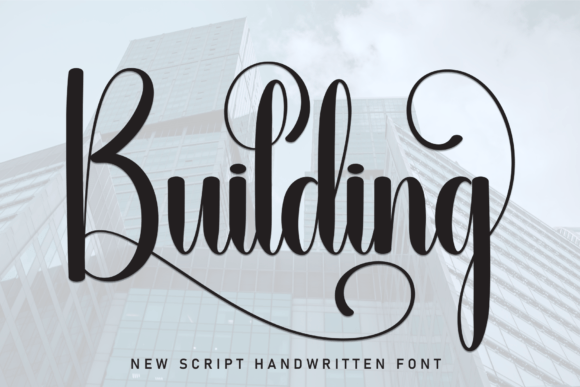
Handwritten Love: Introducing Building Font
Have you ever received a handwritten note that made your heart skip a beat? Maybe it was a love letter, a birthday card, or a heartfelt apology. Whatever the occasion, there’s something special about the imperfections and personality that come with handwritten text. That’s exactly what inspired the creation of the Building Font – a sweet and friendly handwritten font that adds a touch of warmth to any design.
Whether you’re crafting wedding invitations, designing a new logo, or simply writing a thank-you note, Building Font is the perfect choice. Its fresh and casual feel makes it ideal for any design that needs a little extra love. As a designer, you know how important it is to have the right tools at your fingertips. Building Font is a valuable addition to any design arsenal, offering a unique and versatile way to add personality to your work.
Key Features of Building Font
- Unique Character Set: Features a unique character set that includes a wide range of symbols, icons, and glyphs, making it ideal for creative projects.
- Font Customization: Allows for advanced font customization, including ligatures, swashes, and alternate characters, providing designers with creative freedom.
- Multi-Lingual Support: Supports multiple languages, including Latin, Cyrillic, Greek, and more, making it suitable for international projects.
Review of Building Font
Building Font is an interesting font, but its success depends on how you plan to use it.
- Unique aesthetic: Building Font has a distinctive style that can be a great fit for certain projects.
- Customizability: The font is available in various weights and styles, making it easier to find the right fit for your design.
- Legibility: Building Font is relatively easy to read, even at smaller font sizes.
- Limited language support: Building Font may not include the full range of languages you need, which can be a problem for global projects.
- Lack of consistency: Some characters may not be perfectly designed, which can affect the overall quality of your design.
- Not ideal for body text: Building Font is more suited for headlines and titles, where its unique style can shine. For body text, a more traditional font might be a better choice.
Overall, Building Font is a solid choice for specific projects, but it’s essential to weigh its limitations against its benefits. If you’re looking for a unique font for a title or heading, Building Font might be a great option. However, for more comprehensive design needs, you may want to consider other fonts.